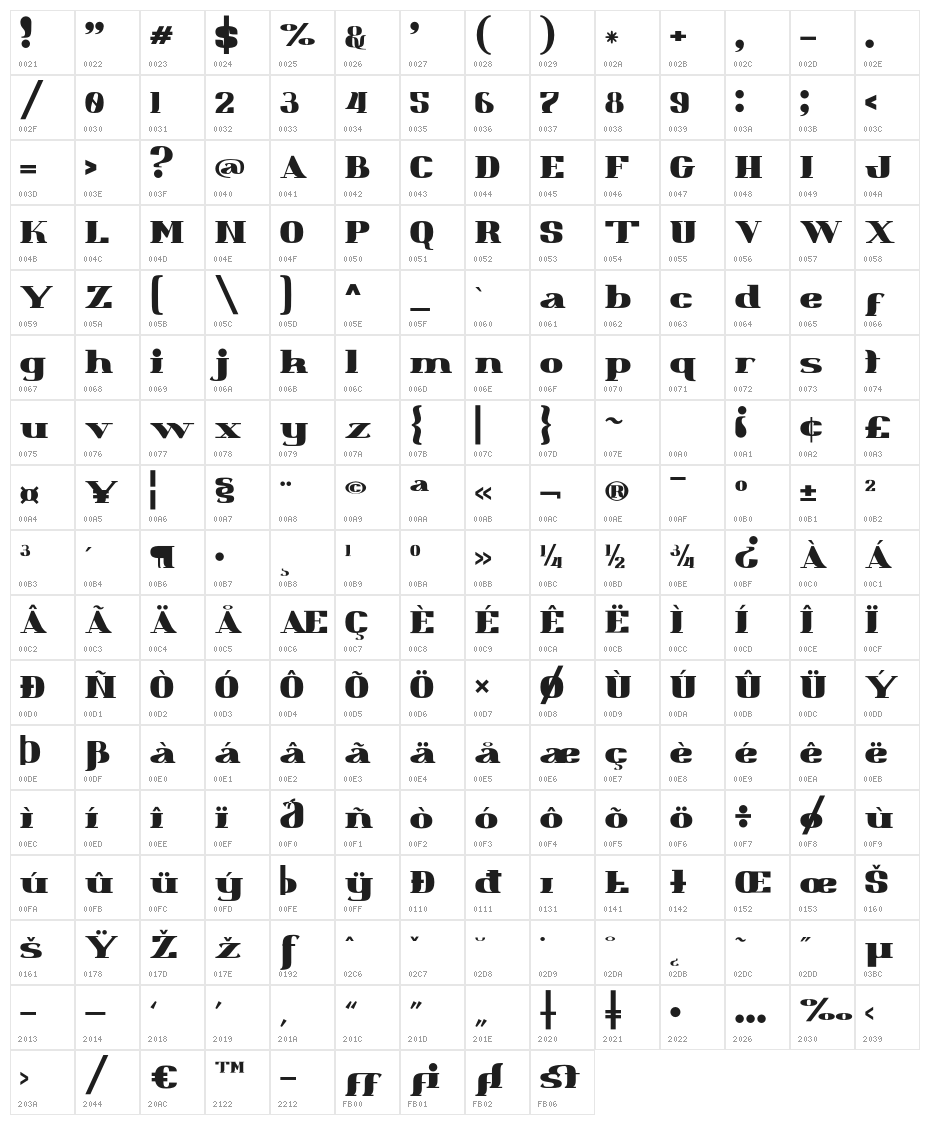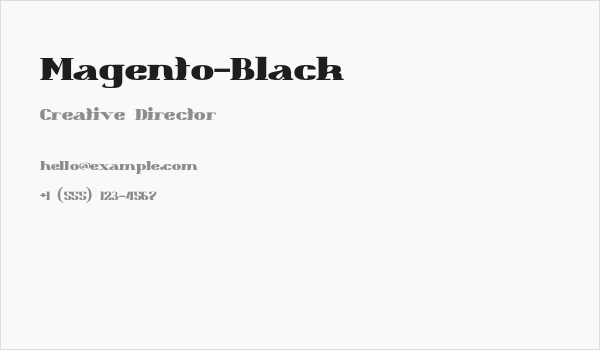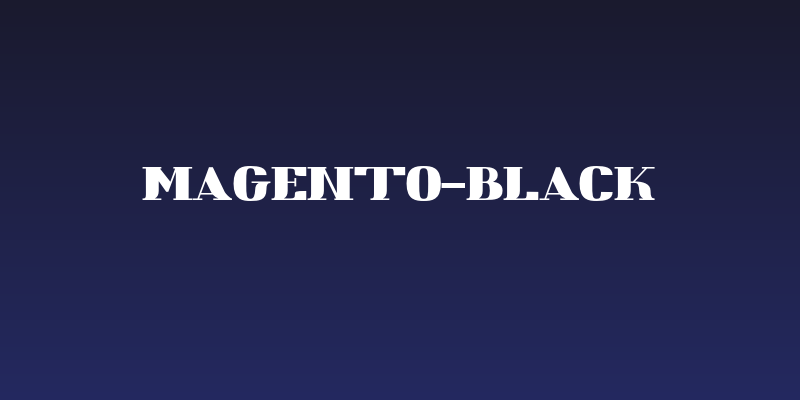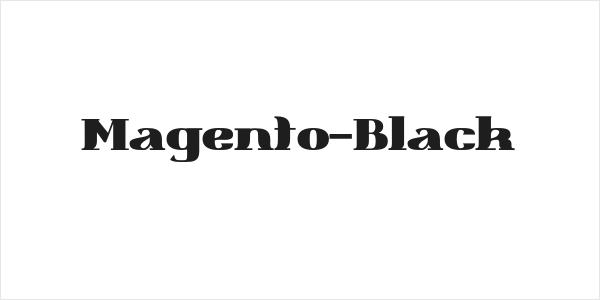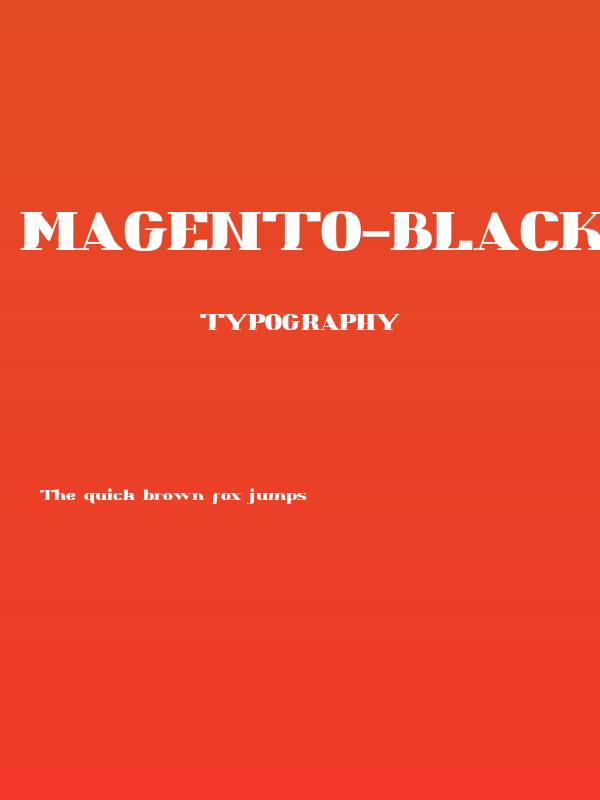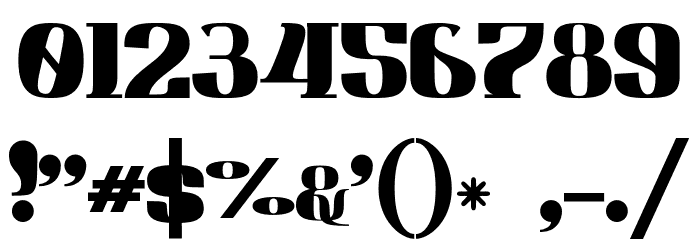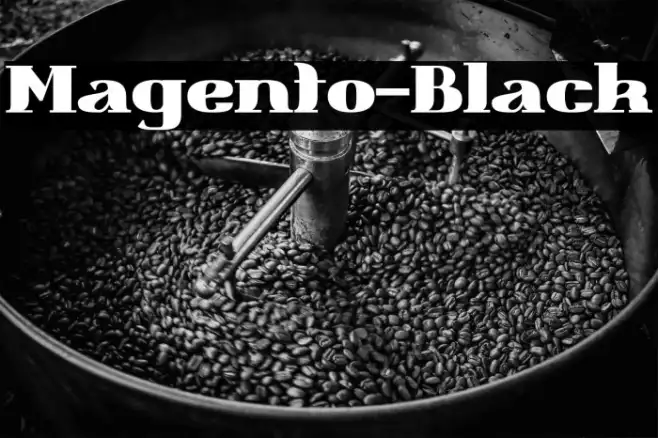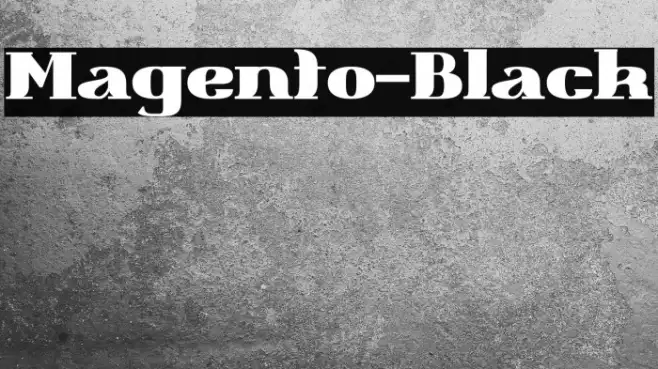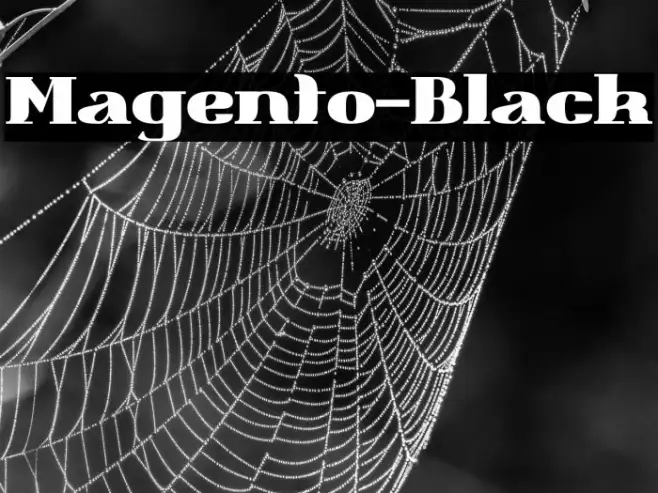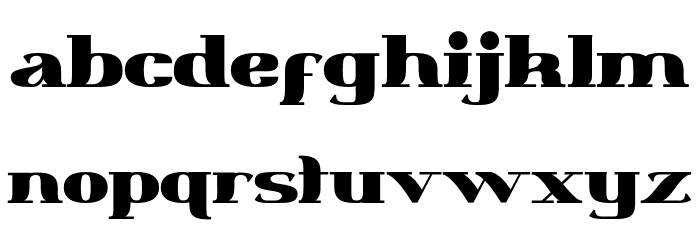
Magento-Black Font
Magento-Black Description
This font exhibits a bold and striking presence with its thick, heavy strokes and sharp serifs. The uppercase letters are robust and commanding, while the lowercase letters maintain a consistent weight, providing a cohesive look. The numerals are equally bold, ensuring visibility and impact. Special characters are designed with the same boldness, making them stand out. The overall design is reminiscent of classic serif fonts but with a modern twist, making it suitable for attention-grabbing headlines and logos.
| Proposed Projects | This font is perfect for projects that require a strong visual impact, such as branding, advertising, poster design, and editorial headlines. |